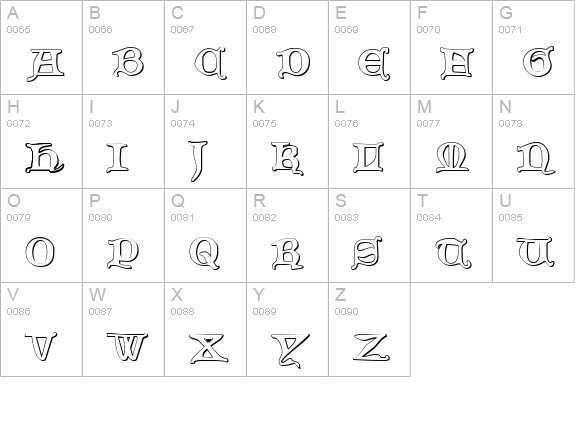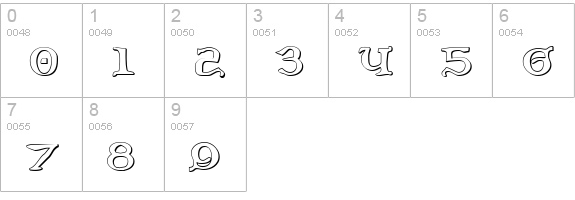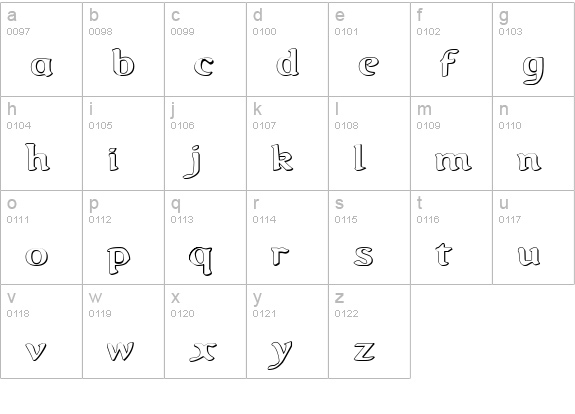
Introducing Queen & Country 3D font, a regal and versatile typeface that exudes elegance and sophistication. This exquisite font features intricate detailing and a three-dimensional effect that adds depth and dimension to your designs. Ideal for projects that require a touch of royalty and charm, Queen & Country 3D font is perfect for branding, invitations, posters, and more. What's even better is that Queen & Country 3D font is available for free download at FontsMarket.com. Yes, you read that right - this stunning font can be yours at no cost, allowing you to elevate your projects without breaking the bank. Don't miss out on this amazing opportunity to add a touch of grandeur to your designs with Queen & Country 3D font. Download it today and let your creativity reign supreme!